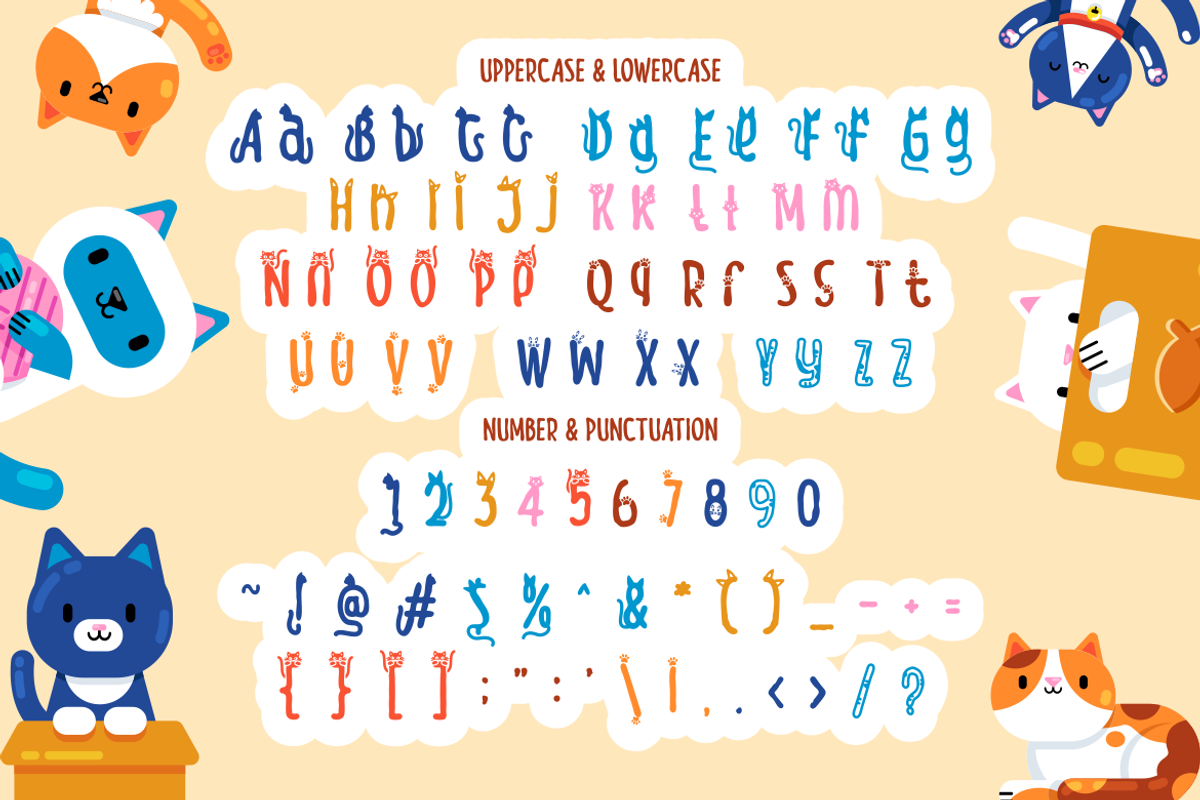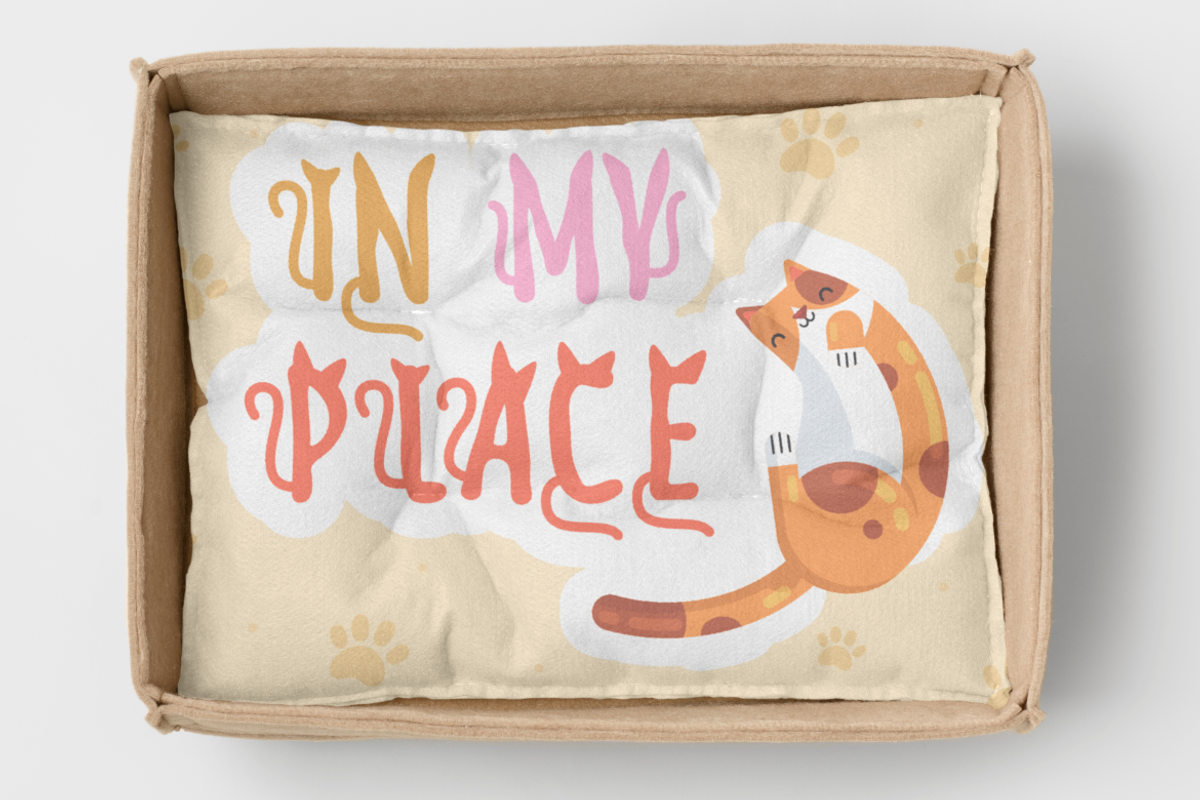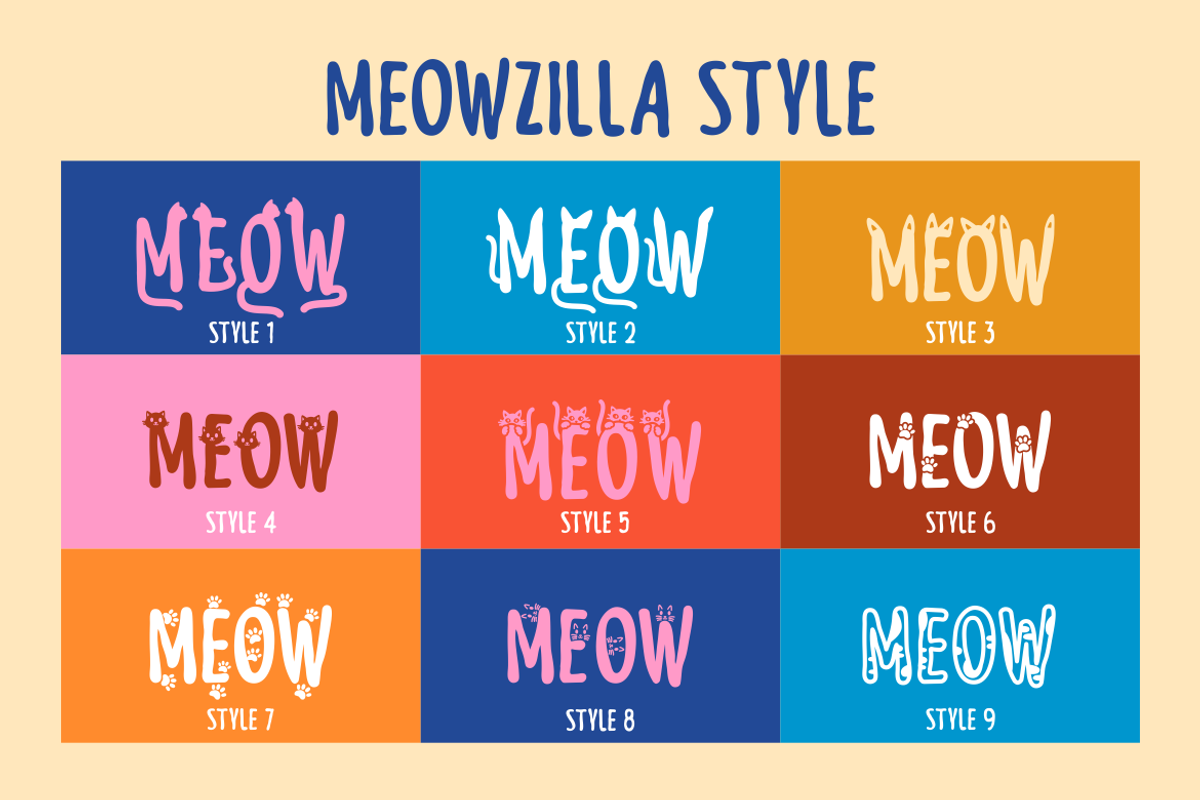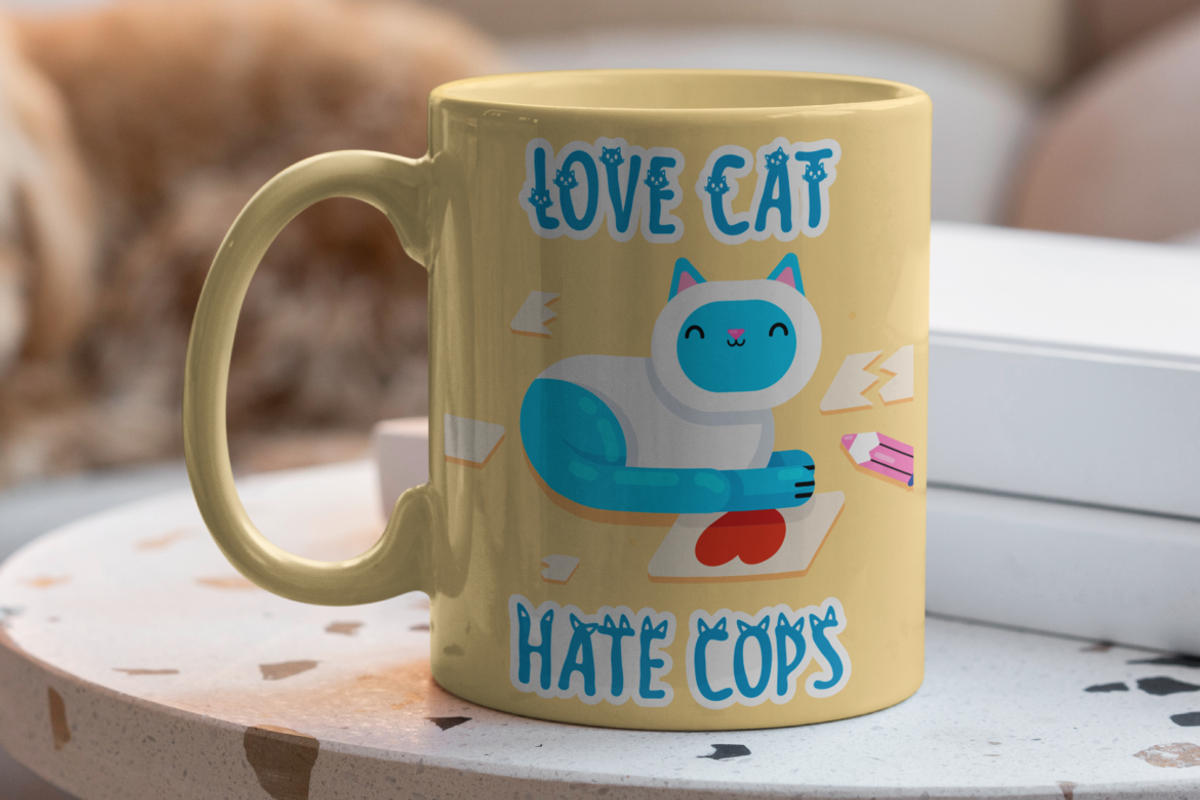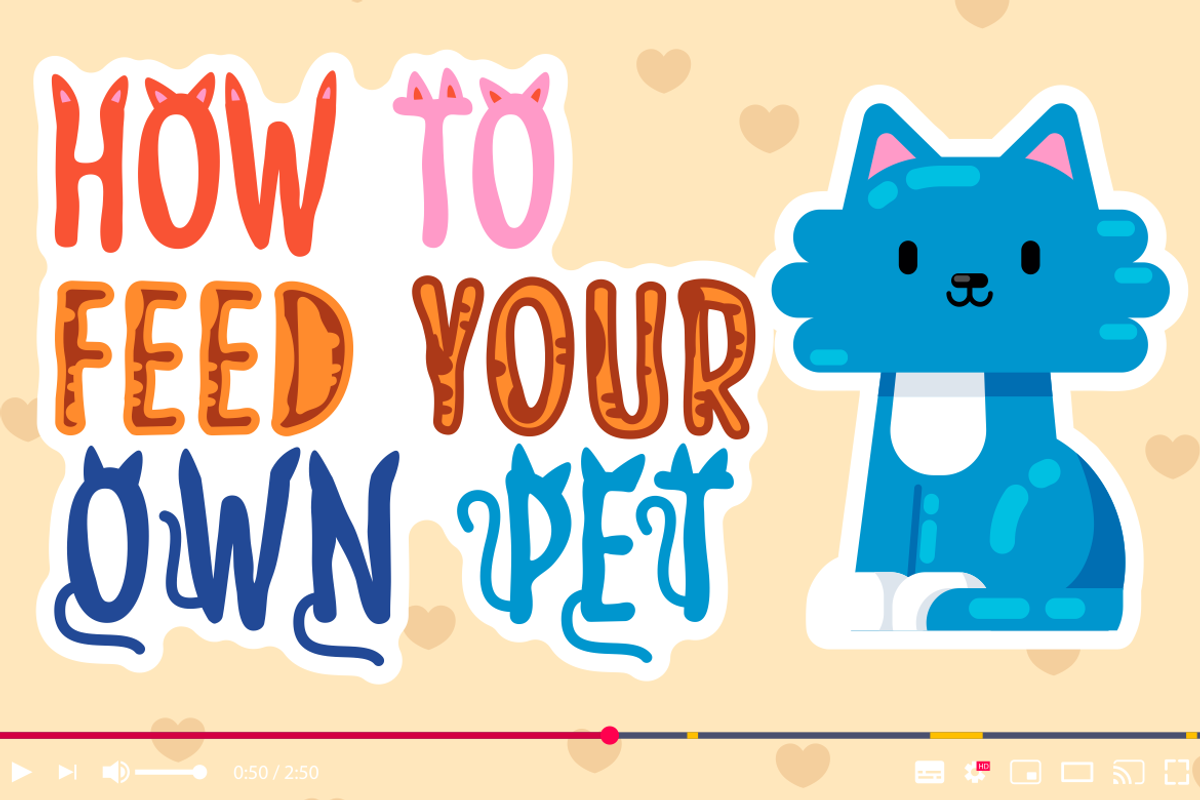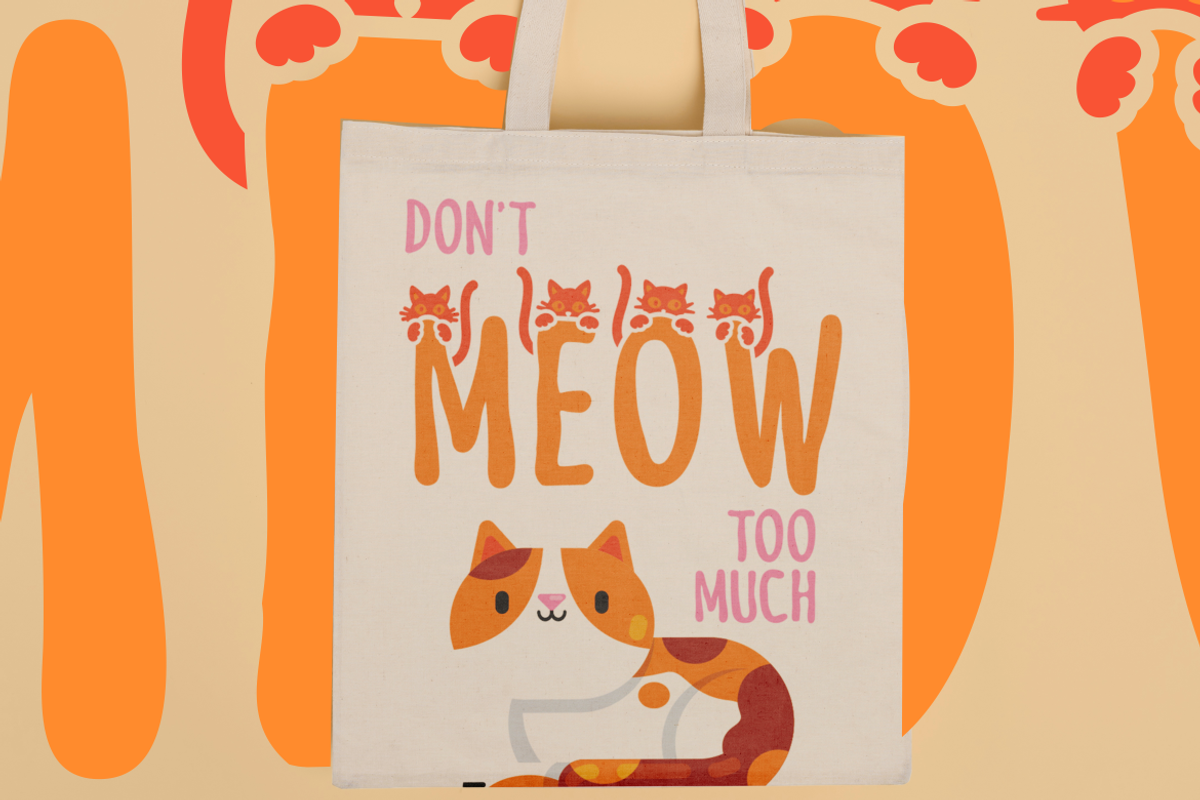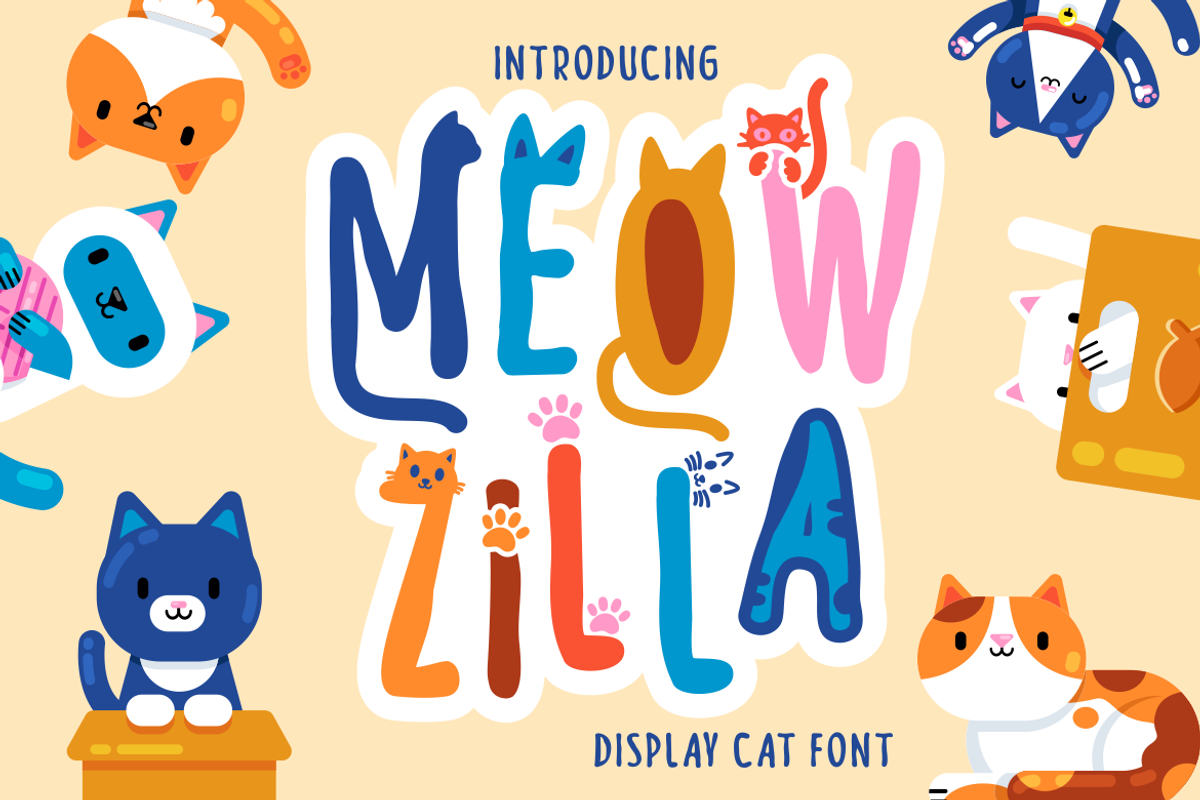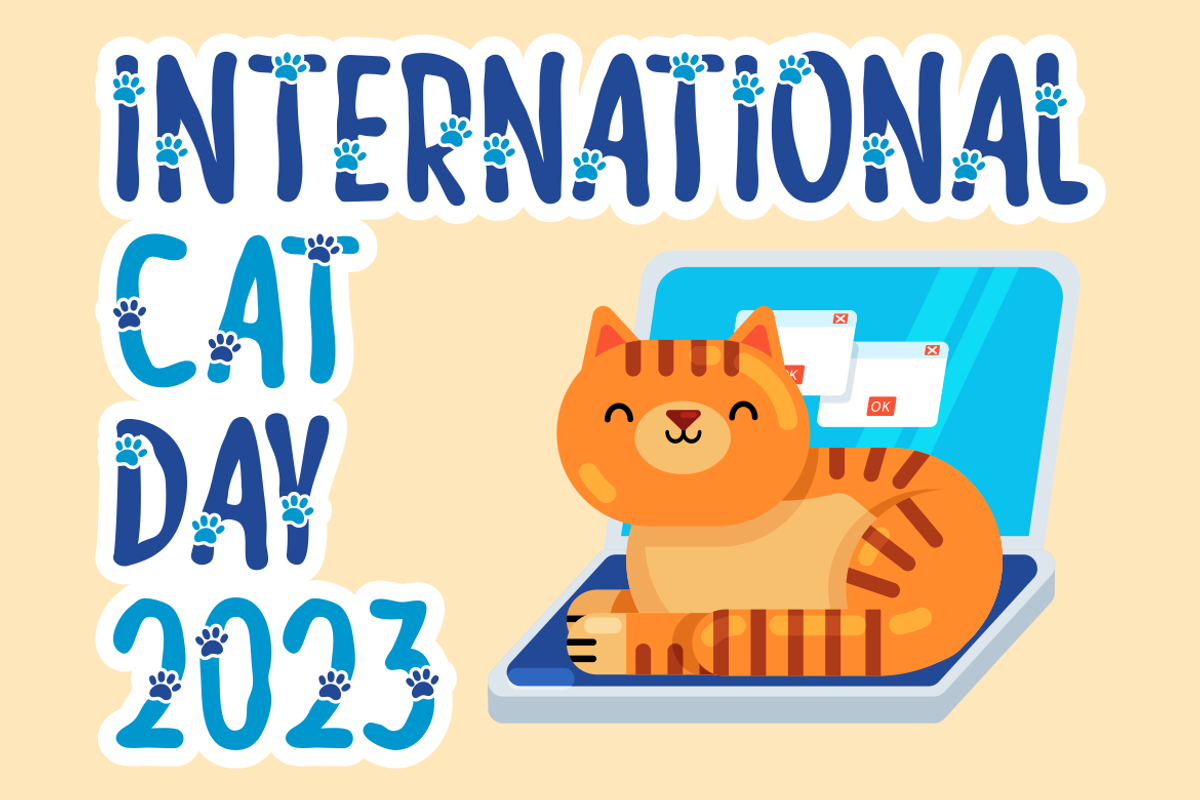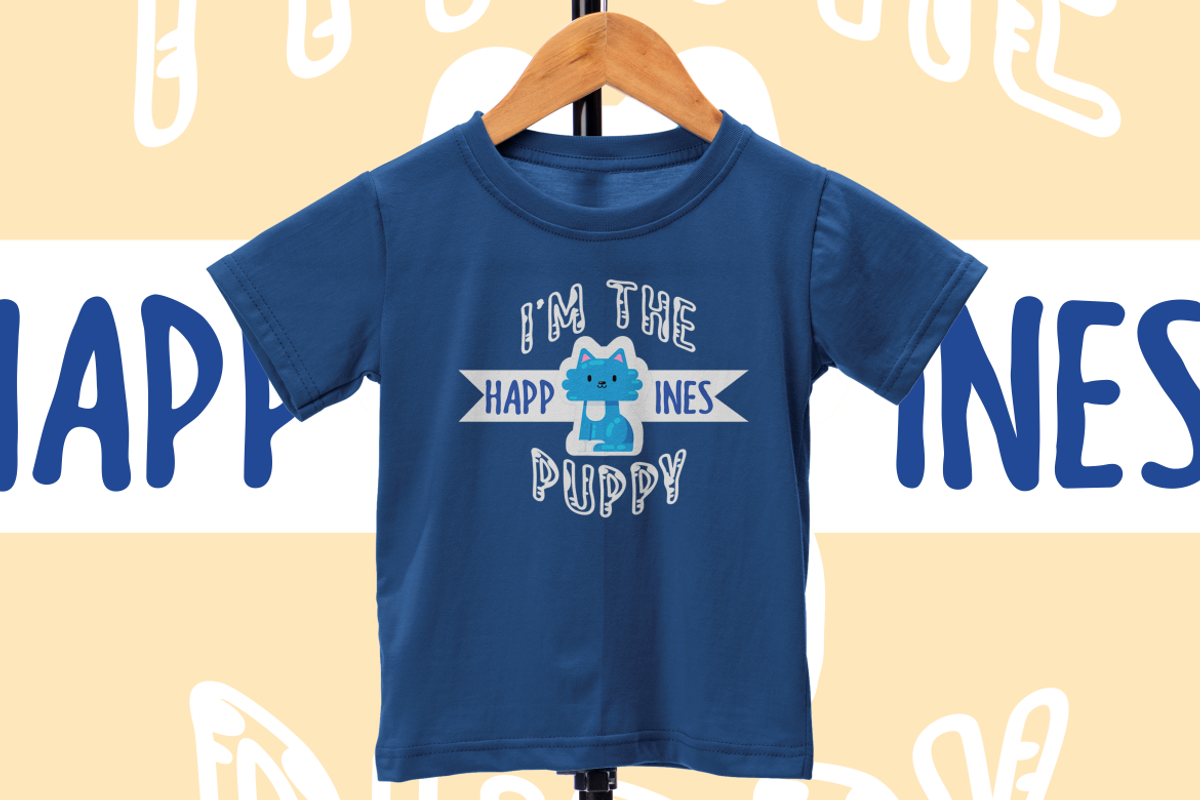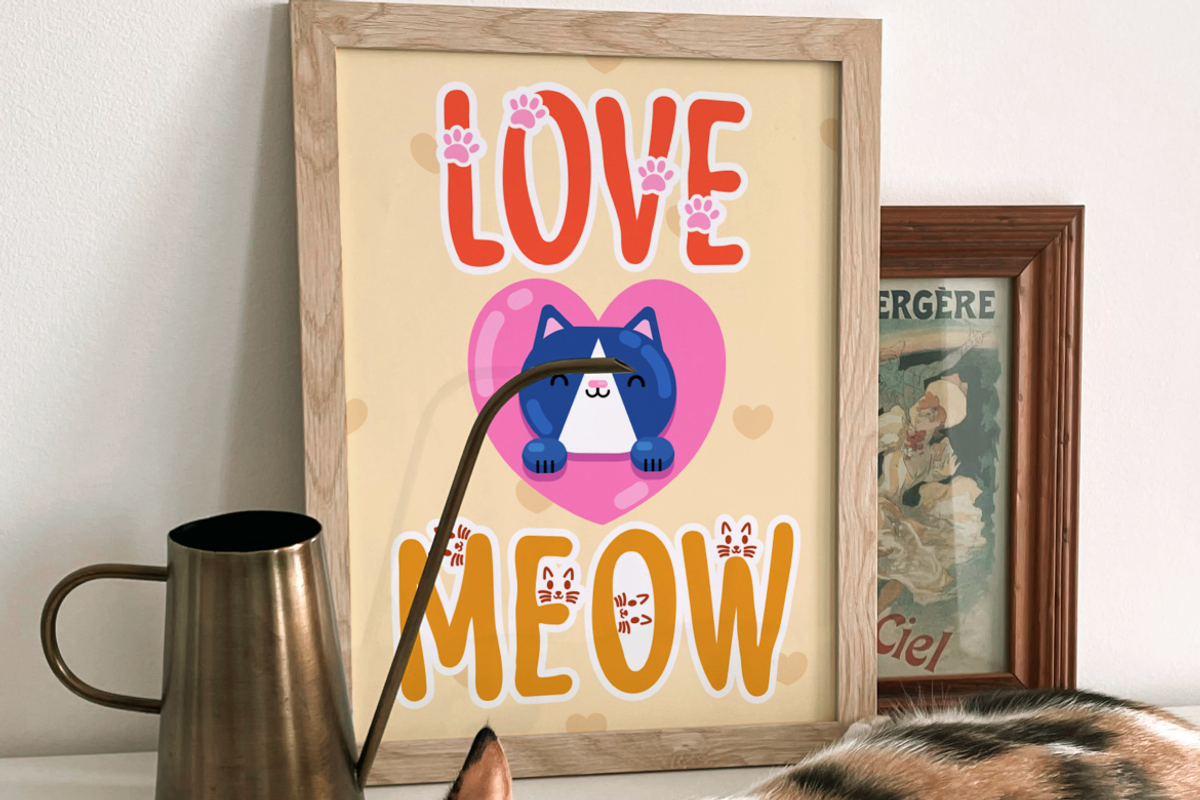
Meow Zilla - Display Cat Theme Font
Introducing “Meow Zilla” - a Display Cat Theme Font that is as playful and fun as a kitten! This unique font, inspired by the whimsical world of cats and kittens, is designed to add a touch of charm to any project. With 10 distinct variations, each reflecting the delightful themes of paws, playful kittens, and more, Meow Zilla is versatile and adorable. Crafted with care and precision, it’s perfect for children’s themes, crafting projects, logos, branding initiatives or any design enriched by a touch of feline grace.
Whether you’re creating invitations, packaging or personalized stickers – Meow Zilla shines in its versatility. The font files are available in both otf and ttf formats ensuring compatibility and ease of use. Every stroke embodies the essence of fun making it an excellent choice for titles in children’s books or playful branding.